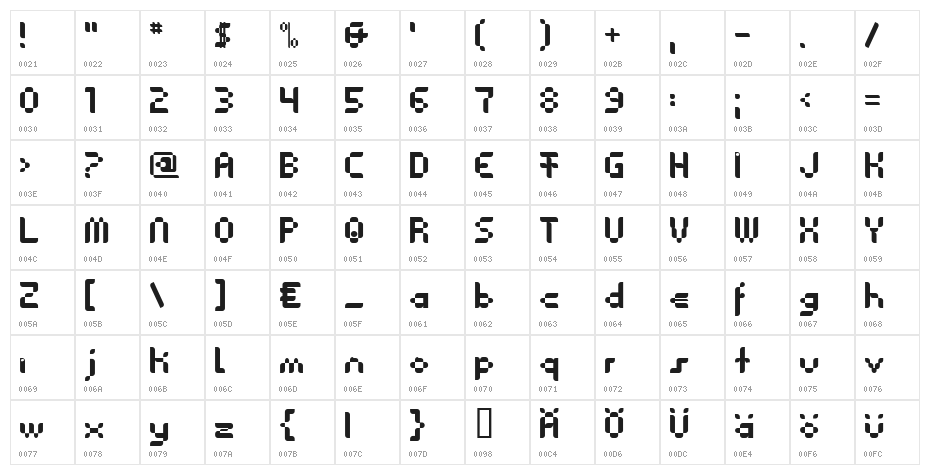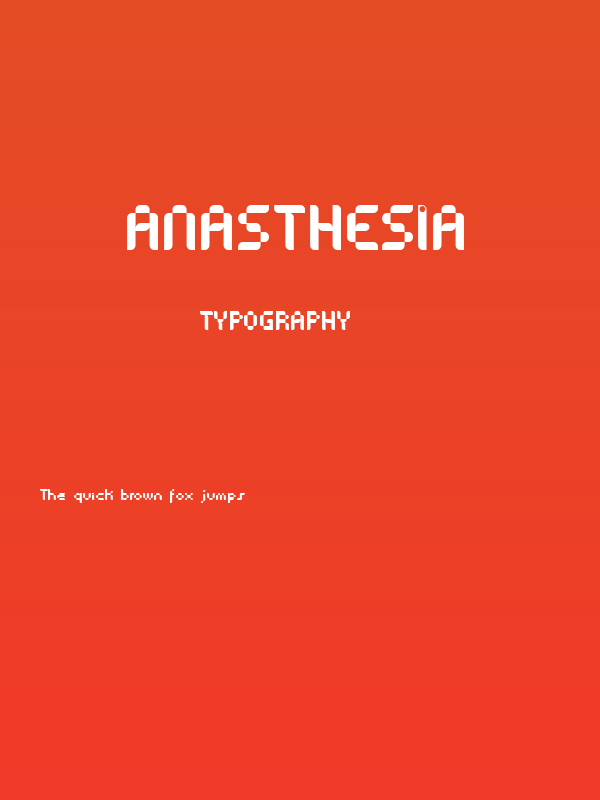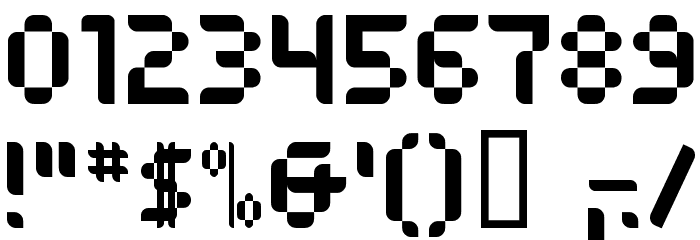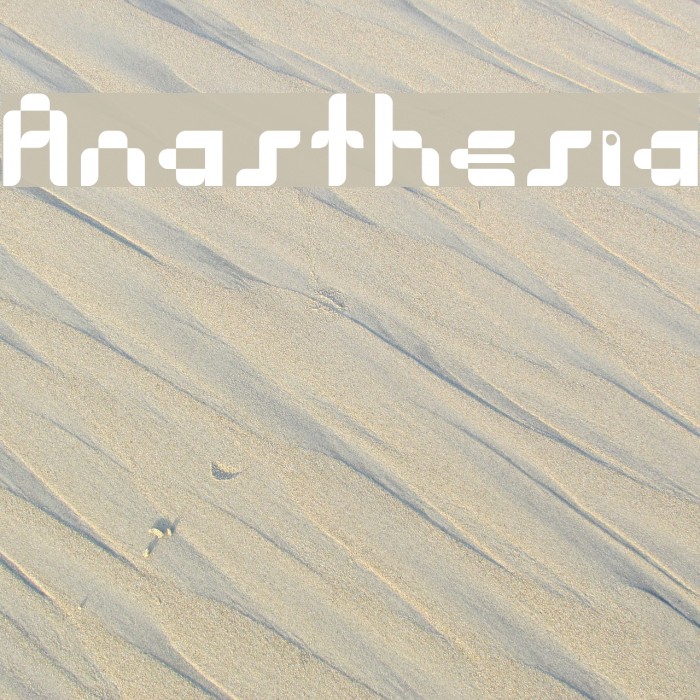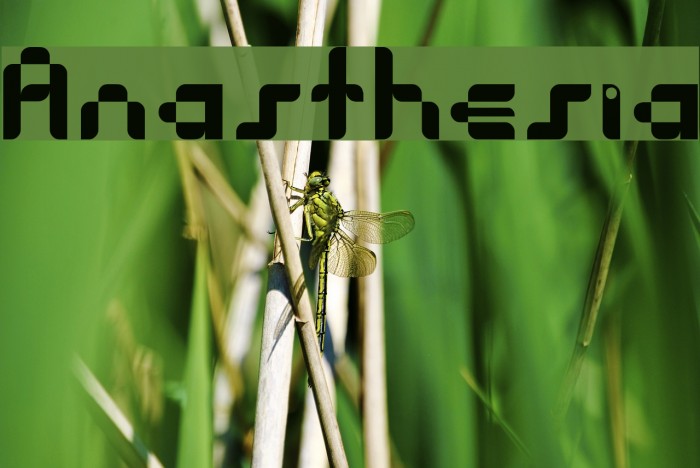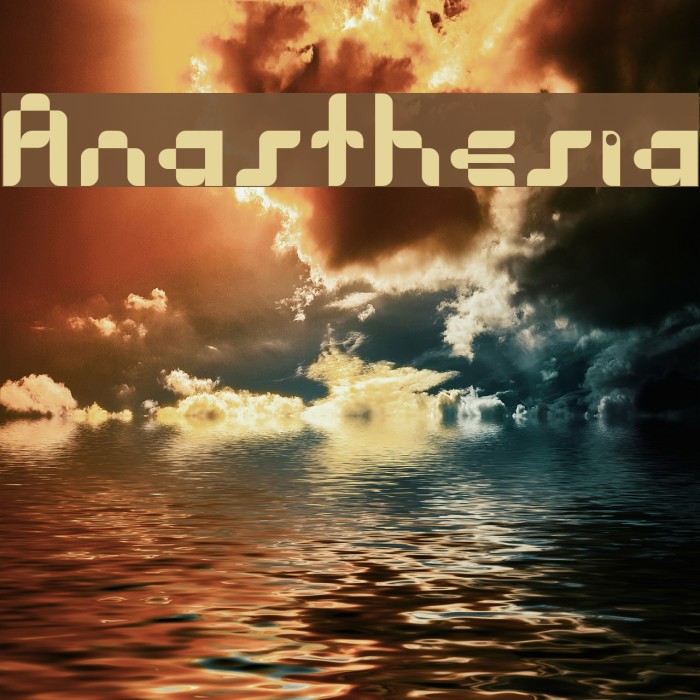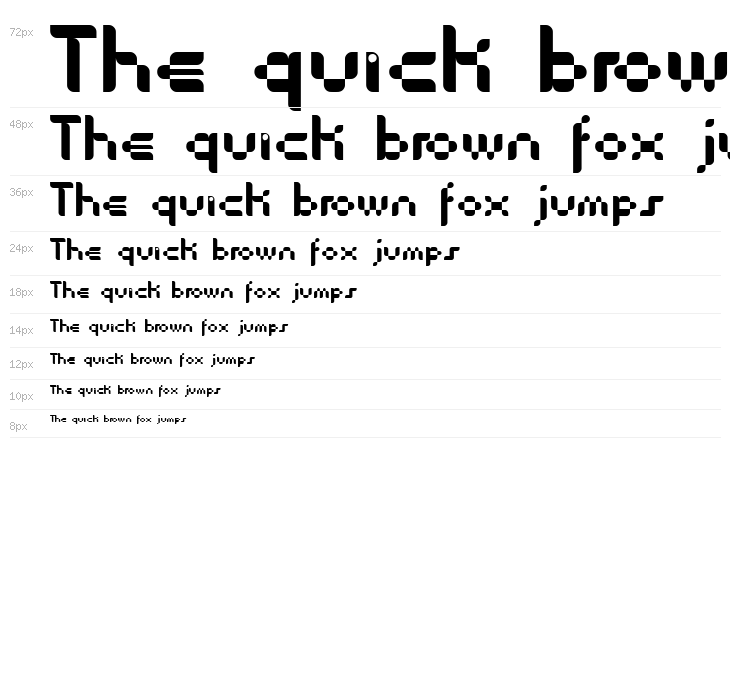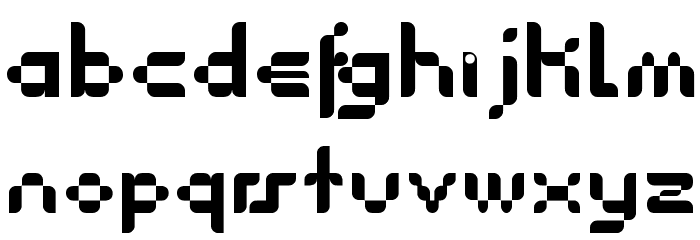
Anasthesia Font
Anasthesia Description
This font features a futuristic and geometric design, characterized by its bold and rounded shapes. The letters are constructed with a series of connected dots and lines, creating a digital and modern appearance. The uppercase and lowercase letters maintain a consistent style, with a uniform thickness throughout each character. Numbers and special characters follow the same design principles, ensuring a cohesive look across all elements. The font's unique style makes it stand out, offering a visually striking option for creative projects.
| Proposed Projects | Ideal for technology branding, sci-fi themed designs, digital art projects, and modern advertising campaigns. |